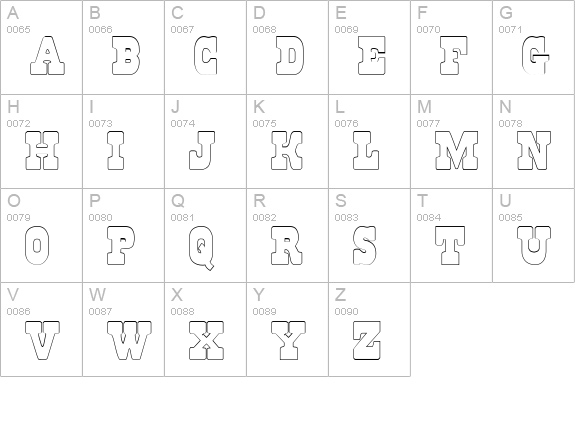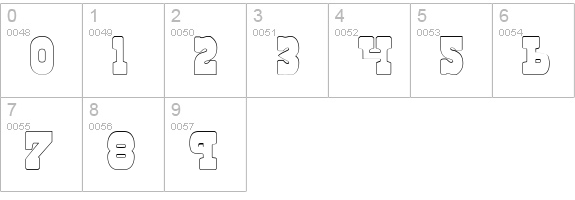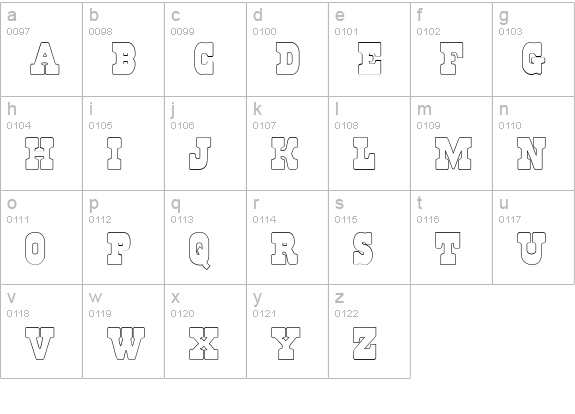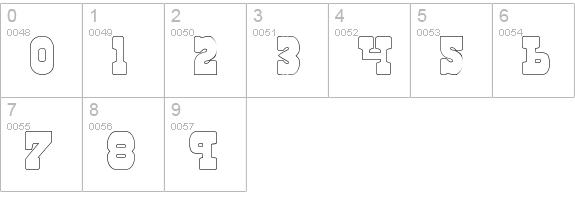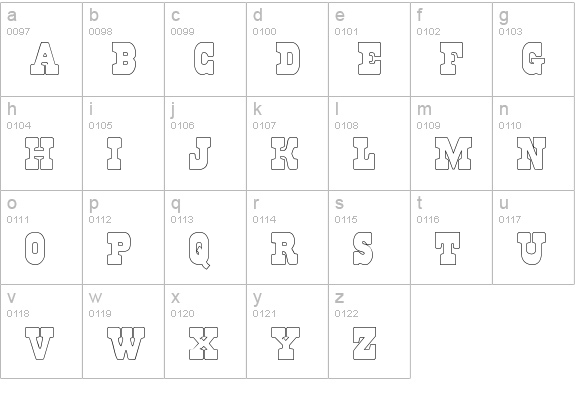
Regulators Outline Font Details
Regulators Outline font is a stunning typeface that captivates with its bold and sophisticated design. With its sleek lines and modern aesthetic, this font is perfect for adding a touch of elegance to any project. The beauty of Regulators Outline font lies in its versatility. It can be used for a wide range of applications, from logos and branding to headlines and posters. Its clean and clear outlines make it highly legible, ensuring that your message will always be conveyed with clarity and impact. What sets Regulators Outline font apart is not only its impeccable design, but also the fact that it is available for free. Yes, you read that right! This fantastic font can be freely downloaded at FontsMarket.com. Whether you are a professional designer or a hobbyist, you can now access this premium font without breaking the bank. Downloading Regulators Outline font is a breeze. Simply head over to FontsMarket.com, locate the font, and with just a few clicks, it will be yours to use in all your creative endeavors. The freedom to explore and experiment with this font is now at your fingertips. So why wait? Elevate your designs and make a lasting impression with the exquisite Regulators Outline font. Download it for free today at FontsMarket.com and unlock a whole new world of typographic possibilities.